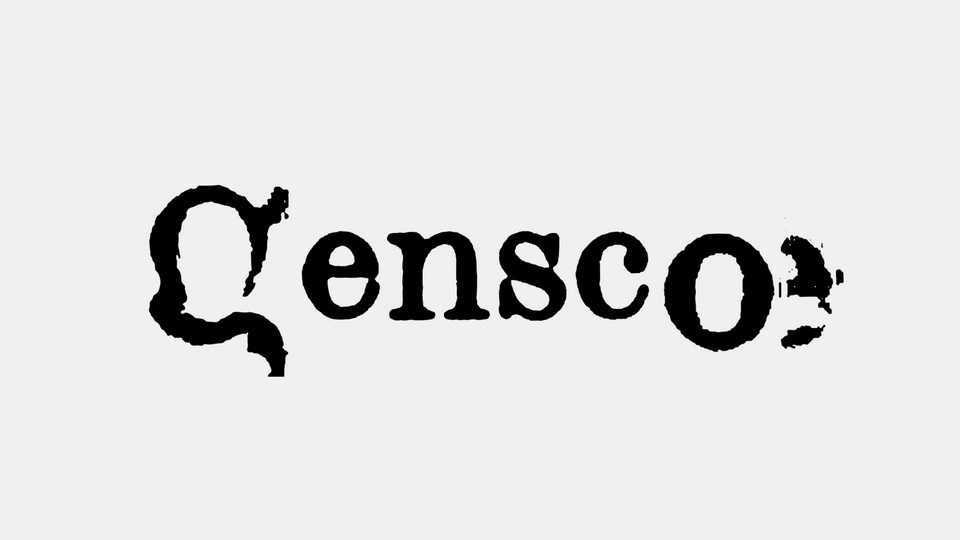
Download Gensco font, a serif typeface generated through the scan and the analyze of some pages from Lucretia, “De la nature” Book. The pages are going through multiple scripts and the Tesseract OCR’s confidence level to select some letters and generate multiple instance of the Typography.